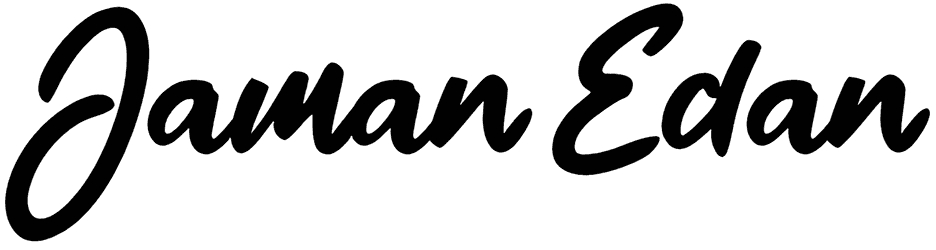
Jaman Edan Font
The Jaman Edan font is like a whisper of elegance that adds a touch of refined sophistication. With its smooth lines and delicate curves, this script font is an excellent choice for those who want to create a sense of formality and elegance.
The ability of this marker font to convey sincere feelings has made the absence of numbers not felt in it, and allows you to get involved on a personal level with the design of your wedding cards, invitations, and sincere congratulations.